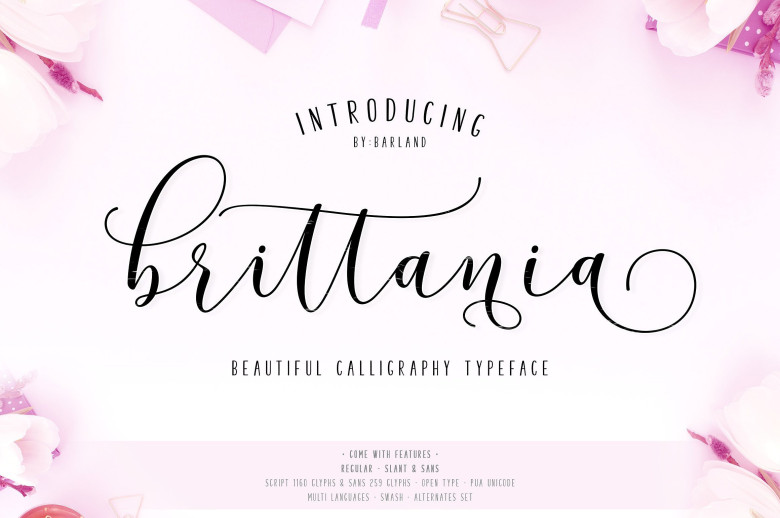
Brittania Script Font
A stylish handwritten font – a new modern & fresh script with a handwritten and script style make this font looks elegant, natural, stylish. I hope we will also design the best art work using this kit. Introducing Brittania Font. Brittania is modern script font, every single letters have been carefully crafted to make your text looks beautiful. With modern script style this font will perfect for many different project ex: quotes, blog header, poster, wedding, branding, logo, fashion, apparel, letter, invitation, stationery, etc.